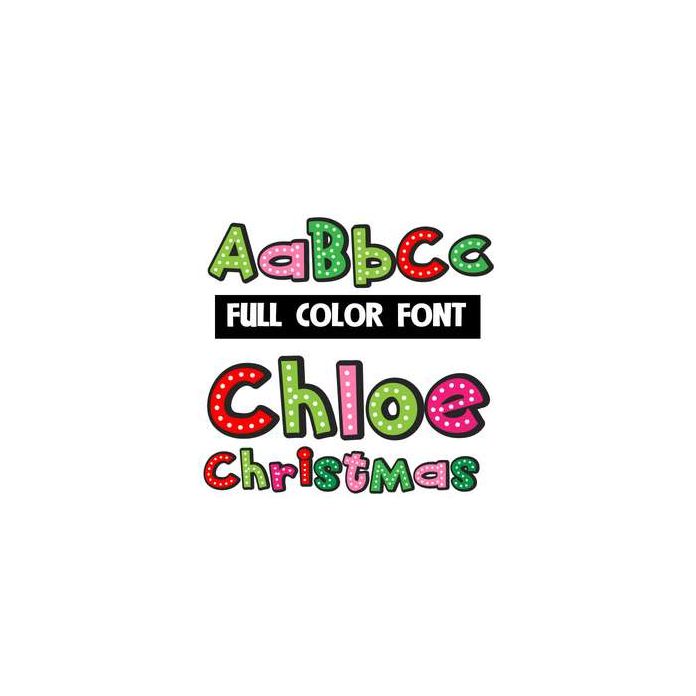
This full-color font features playful 3d letters with dotted designs. This font works best for titles, displays, posters and more. Please note color fonts will show as black in non compatible programs. This font type is compatible with Silhouette Studio.